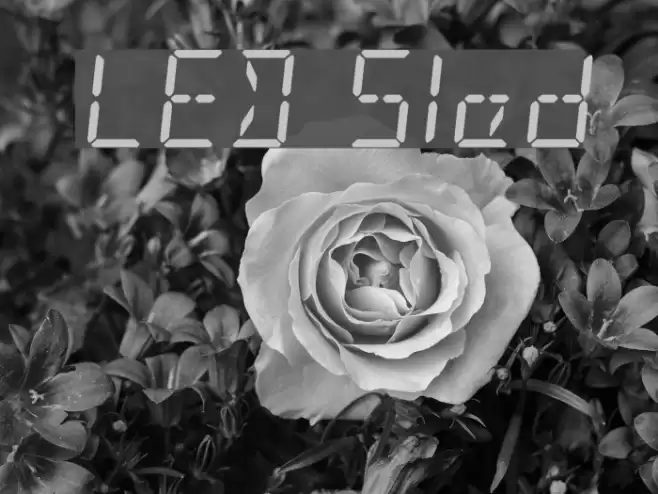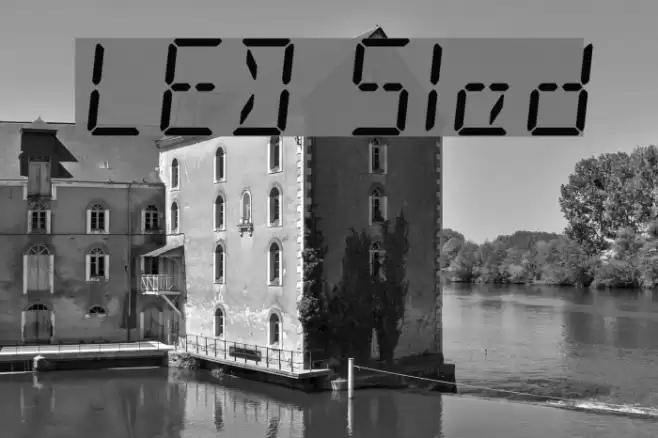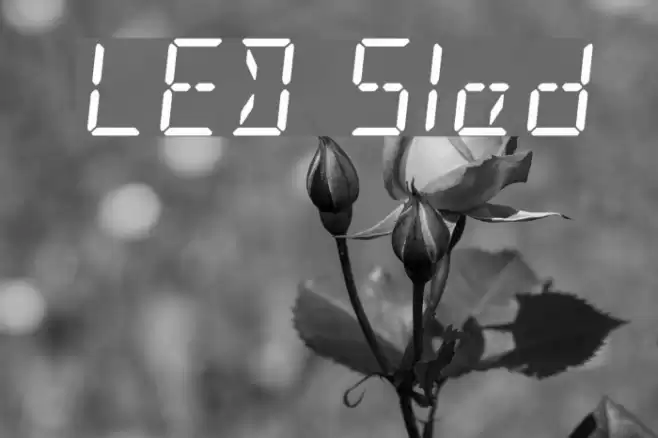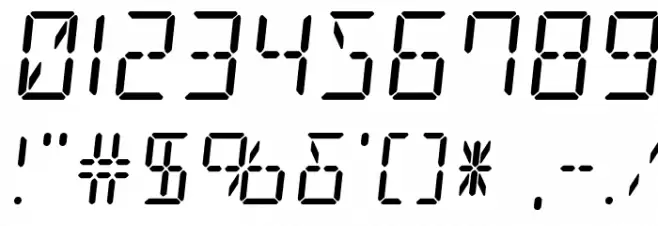
LED Sled Font
LED Sled Description
This font features a distinctive digital and futuristic style, reminiscent of LED displays and digital clocks. Each character is composed of angular, segmented lines that mimic the appearance of electronic displays. The uppercase and lowercase letters maintain a consistent geometric structure, providing a uniform and cohesive look. Numbers and special characters follow the same segmented design, enhancing the overall digital aesthetic. The font's design is clean and modern, making it suitable for projects that require a technological or contemporary feel. Its unique style captures attention and conveys a sense of innovation and modernity.
A digital, segmented font inspired by LED displays, offering a modern and futuristic look from Futuristic fonts.
- Proposed Projects: Ideal for digital interfaces, tech-themed posters, electronic product branding, and futuristic design projects.